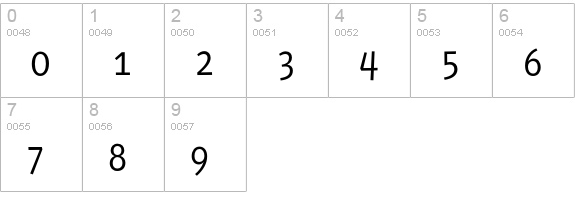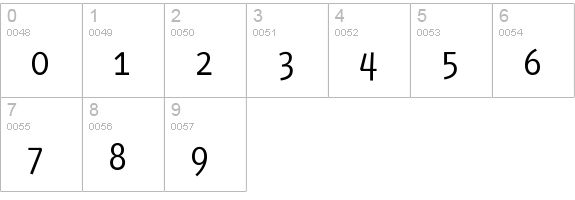
PedestriaMVB-Regular is the standard, neutral variant in the PedestriaMVB typeface family \xE2\x80\x94 well suited to general body text, paragraphs, and standard typographic work.
Introducing PedestriaMVB-Regular, a versatile and modern font that is sure to elevate any design project. With its clean lines and contemporary flair, this typeface is perfect for a wide range of applications, from branding and advertising to web design and print materials. PedestriaMVB-Regular boasts a unique combination of simplicity and sophistication, making it suitable for both professional and creative endeavors. Its elegant curves and balanced proportions create a harmonious visual experience that captures attention and conveys a sense of professionalism. What sets PedestriaMVB-Regular apart is its accessibility. This font is freely available to download at FontsMarket.com, ensuring that designers of all skill levels can take advantage of its beauty and functionality. Whether you're a seasoned graphic designer or just starting out, PedestriaMVB-Regular offers a seamless and enjoyable experience that will enhance your work. The versatility of PedestriaMVB-Regular extends to its extensive character set, which includes uppercase and lowercase letters, numerals, punctuation marks, and special characters. This comprehensive range ensures that you have all the tools you need to create captivating and visually appealing designs. With its clean and legible design, PedestriaMVB-Regular is particularly well-suited for body text, headlines, and captions. It effortlessly blends into any project, adding a touch of elegance and professionalism without overpowering the overall aesthetic. Whether you're working on a corporate brochure, a website, or any other design project, PedestriaMVB-Regular is a reliable choice that will elevate your work to new heights. Download this font for free at FontsMarket.com and unlock its full potential for your next creative endeavor.